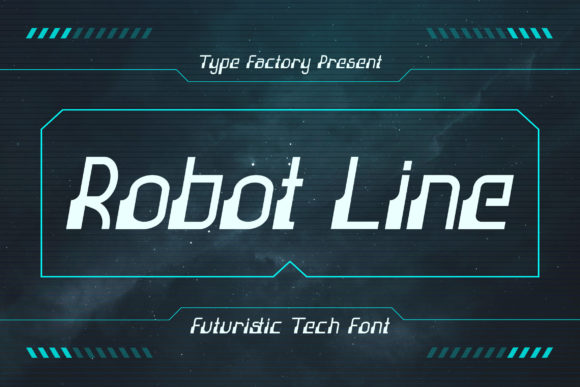
Prepare yourself for a font that will revolutionize your digital creations – Robot Line! This cutting-edge display font, crafted by the renowned TypeFactory, seamlessly blends the allure of technology with the captivating aesthetics of modern design.
With its sleek, geometric lines and a futuristic undertone, Robot Line is the perfect choice for injecting a touch of innovation into your designs. Its sharp angles and clean curves evoke a sense of precision and sophistication, making it ideal for projects that demand a tech-savvy edge.
Unleash your creativity and explore the endless possibilities that await with Robot Line. Its versatility knows no bounds, empowering you to craft captivating headlines, thought-provoking posters, and eye-catching social media graphics that will leave a lasting impression.
Step into the future of typography with Robot Line. Let its tech-inspired charm elevate your designs to new heights, captivating audiences with its unique blend of modernity and innovation. Embrace the power of this extraordinary font and watch as your creations transcend the ordinary and embrace the extraordinary.